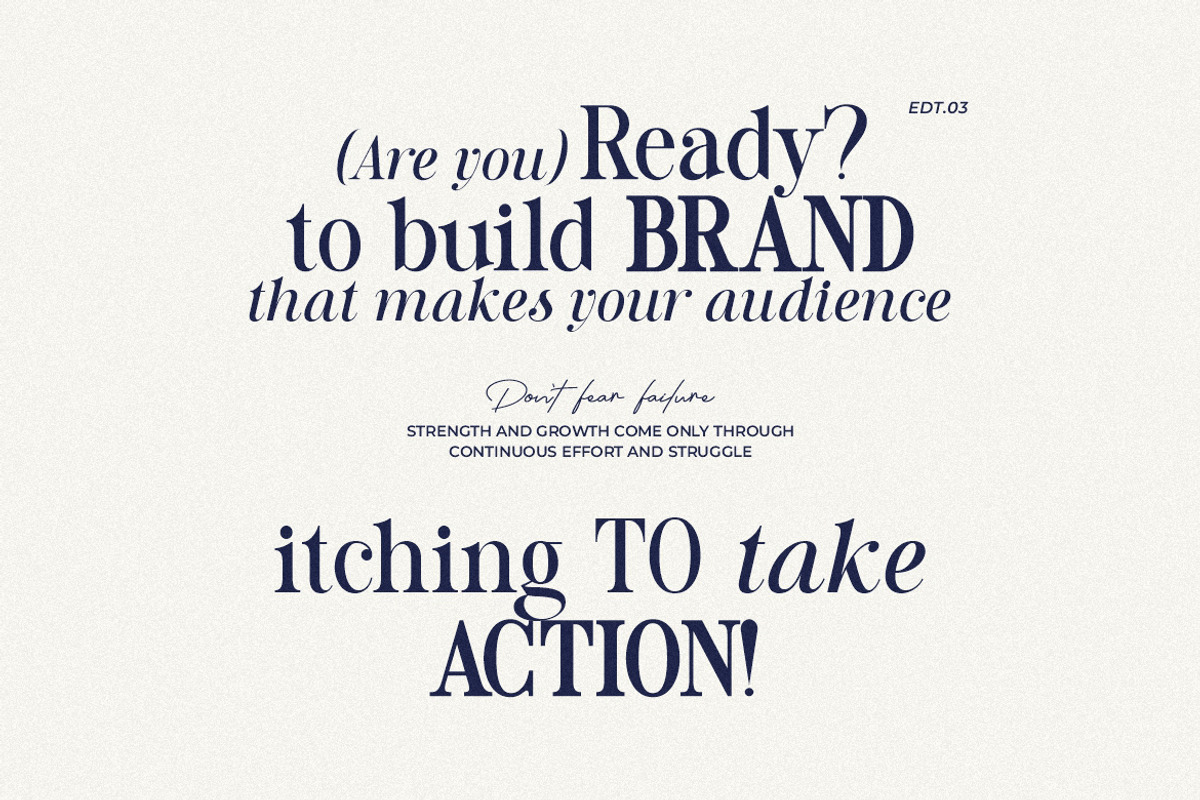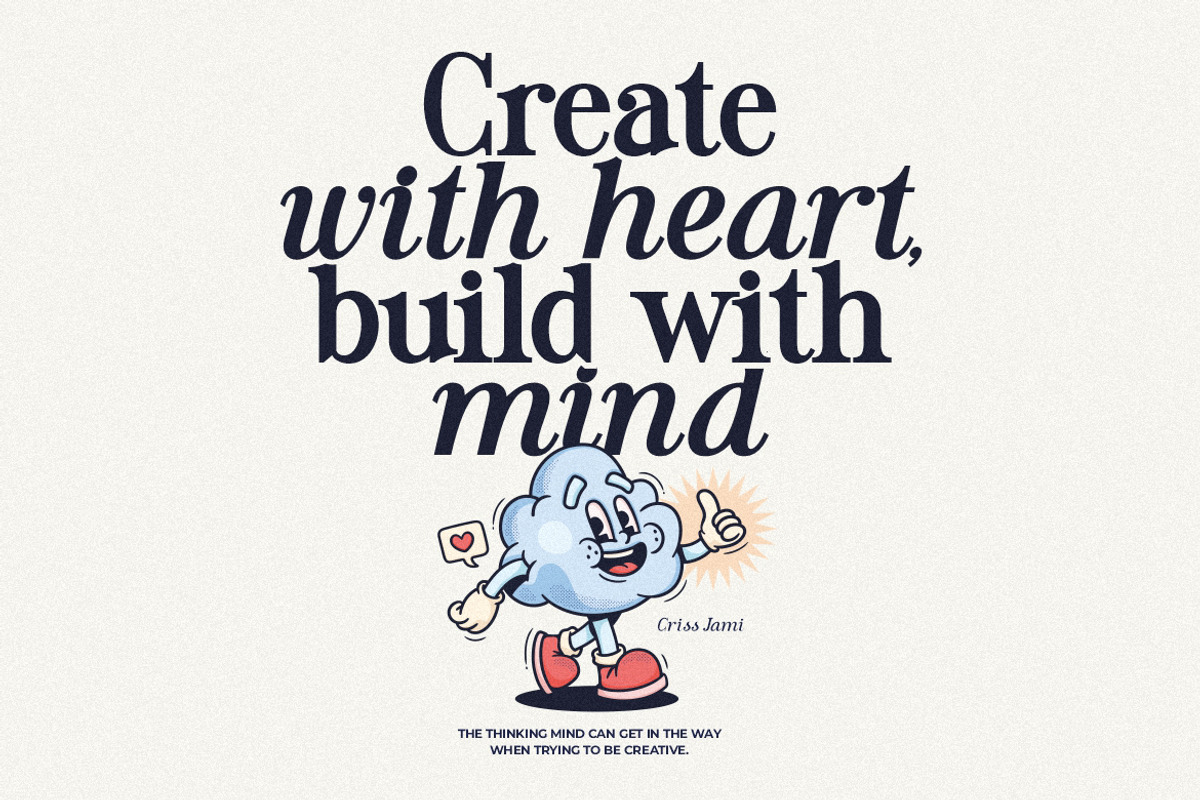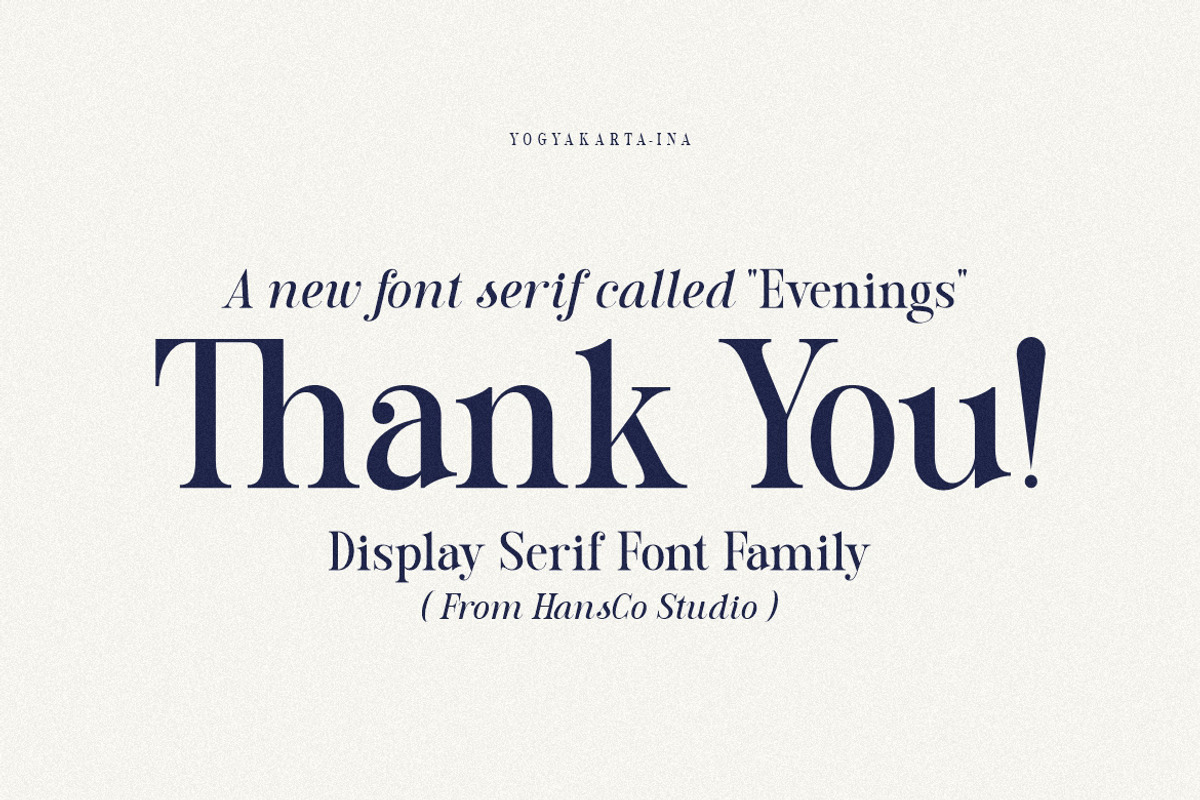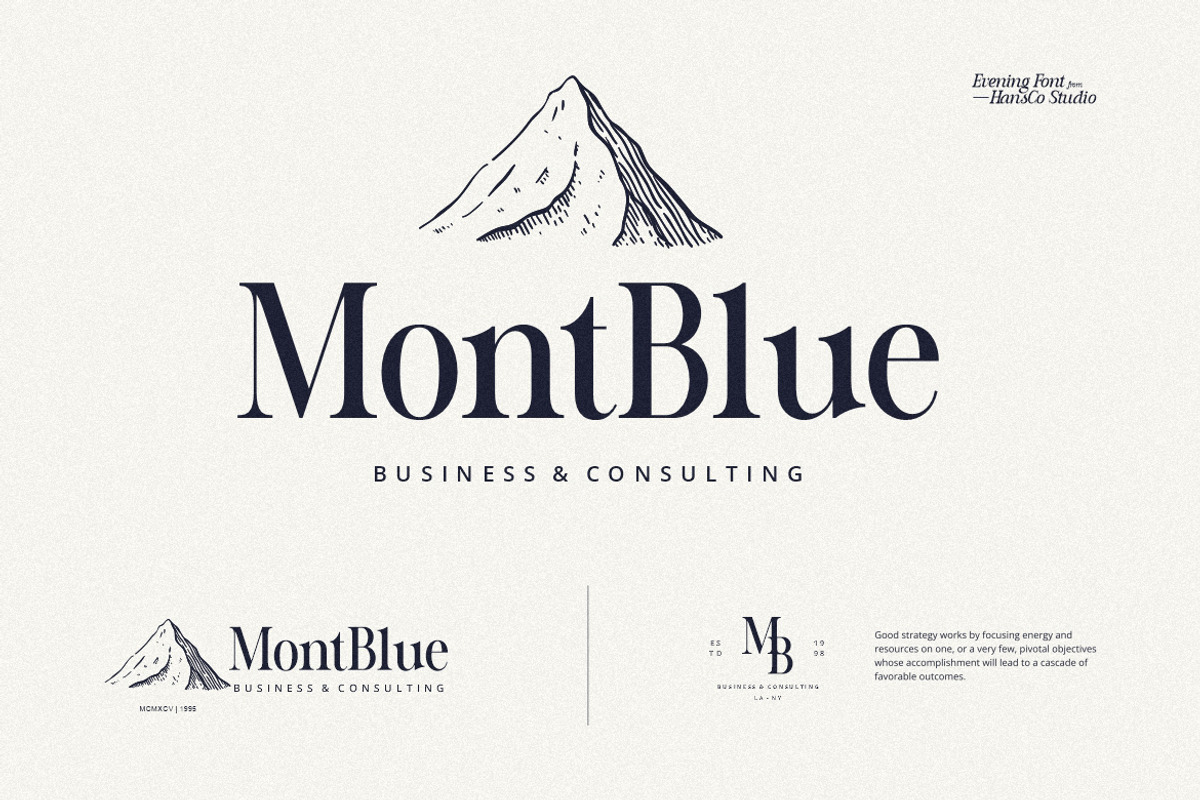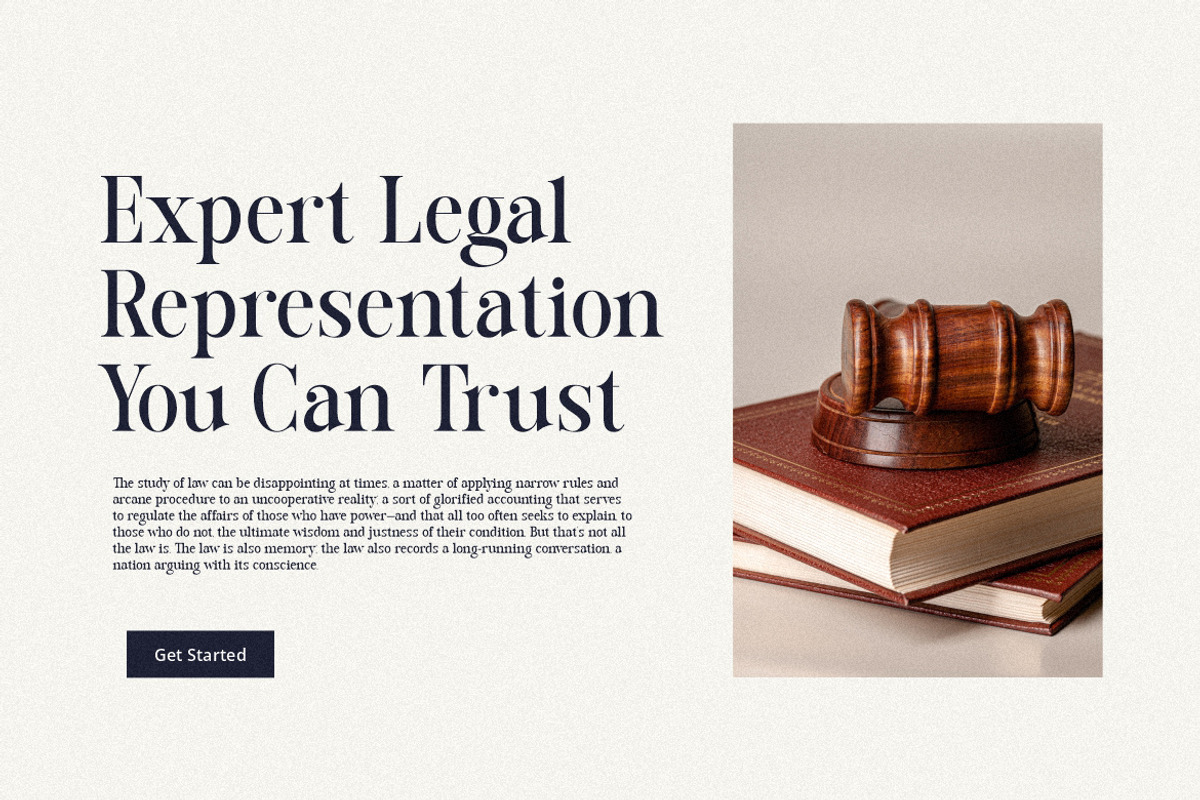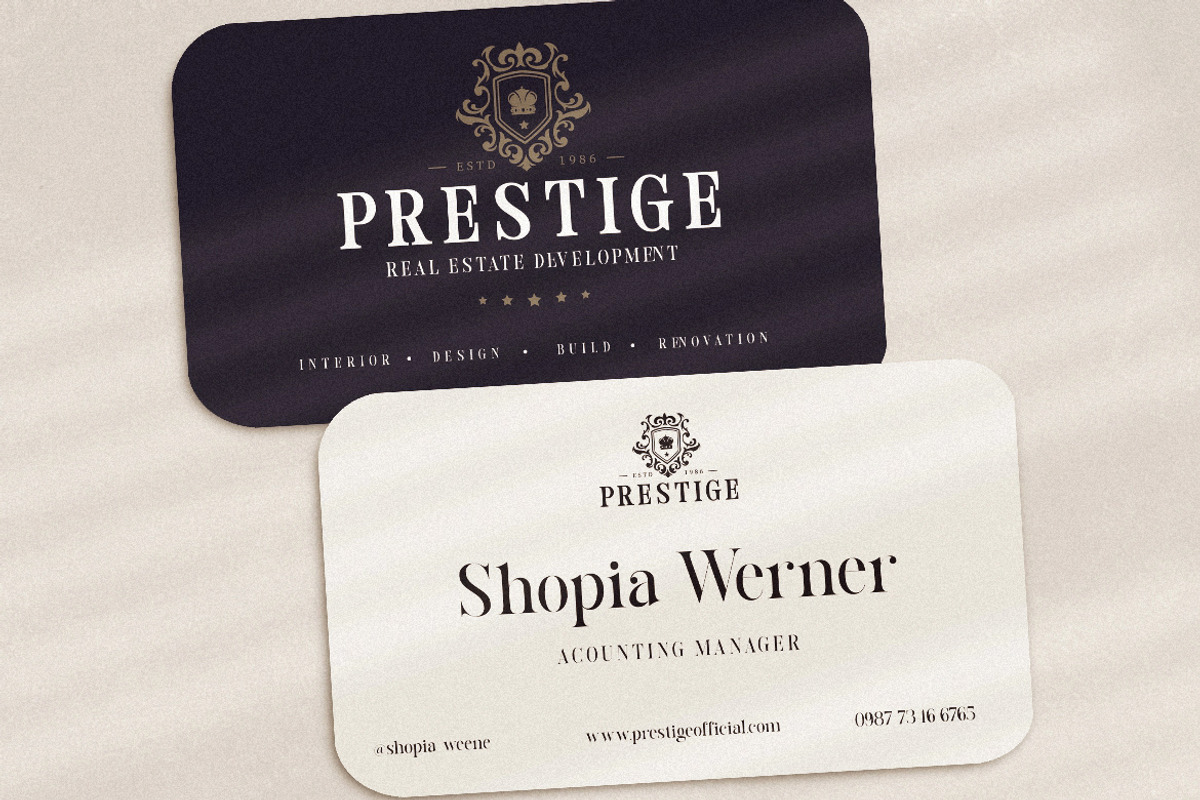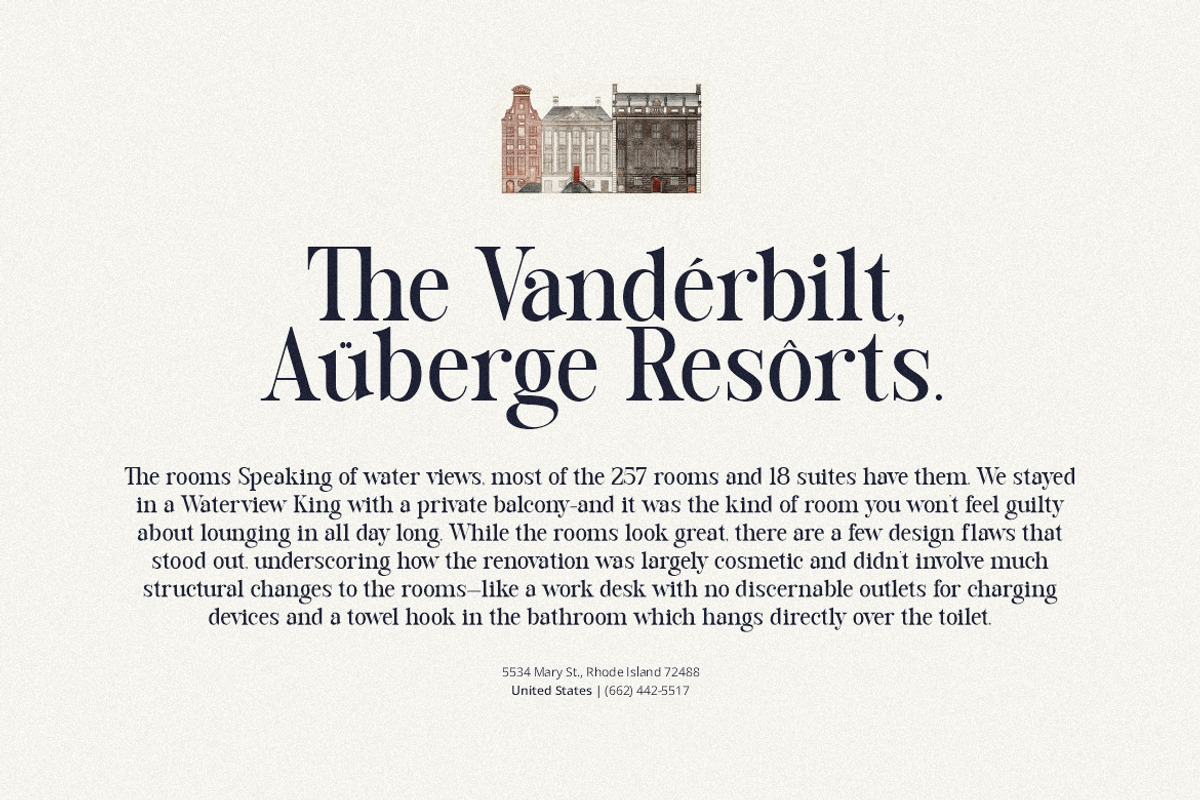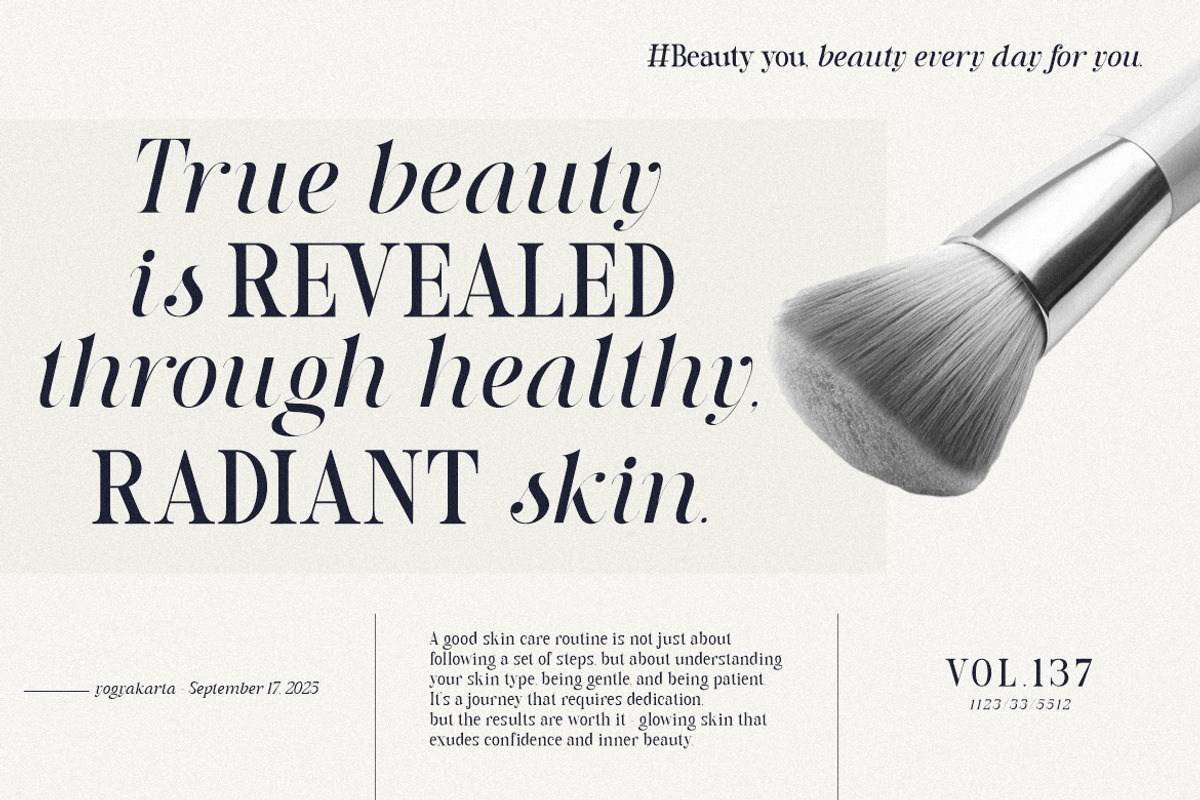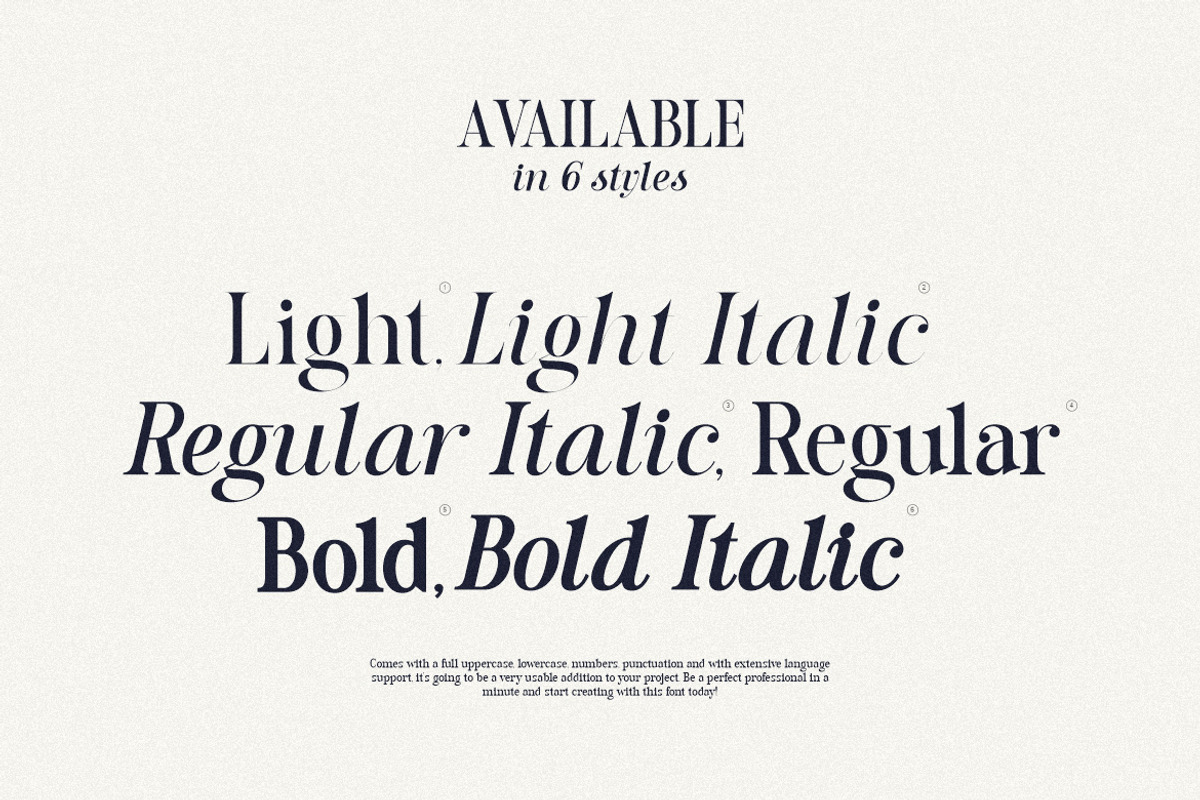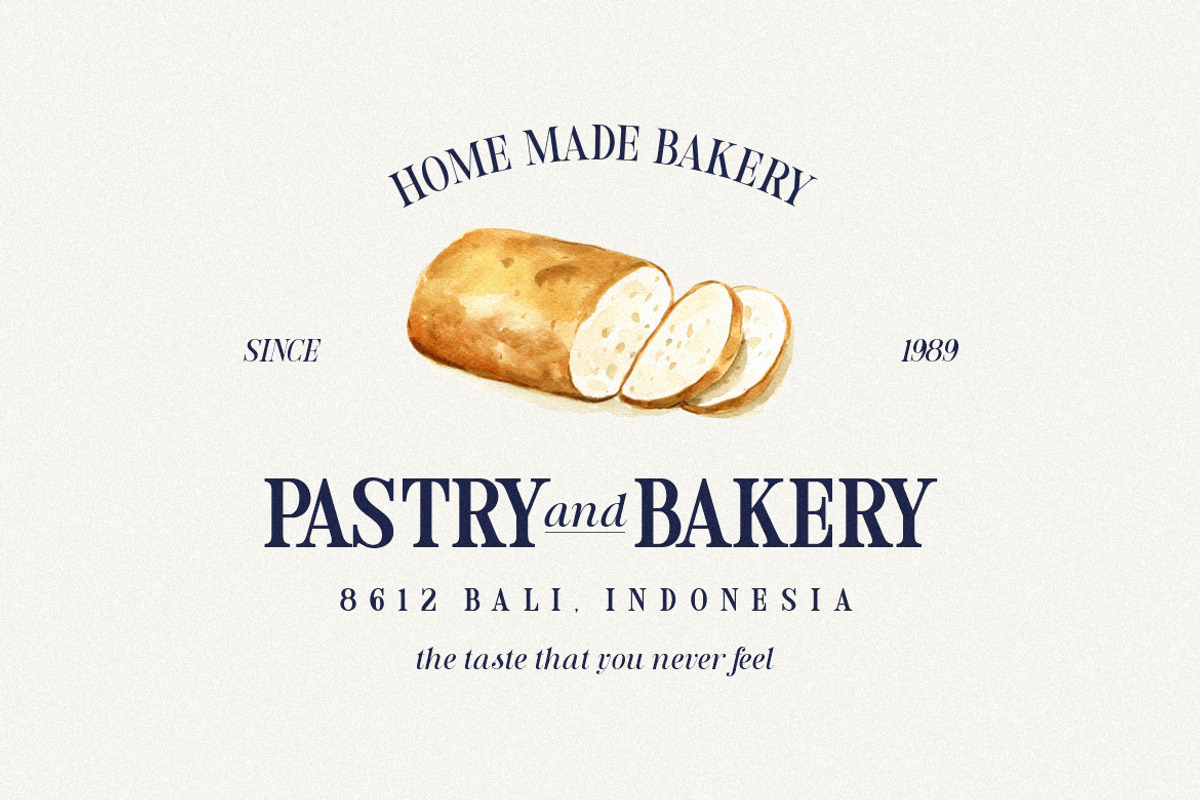
Evenings | Retro Vintage Serif Font
Introducing our latest serif font called Evening. This serif font is beautifully crafted, blending classic charm with contemporary style. It has 6 different styles ranging from Light, Regular and Bold as well as an Italic version. All of which allow you to explore and create a wide variety of projects. Whether you are creating a sophisticated editorial layout, a striking brand identity, or an eye-catching website, this font will evoke a sense of classic beauty while maintaining a fresh and modern feel.
- Number & Punctuation
- Ligature for some characters
- 6 Font Style